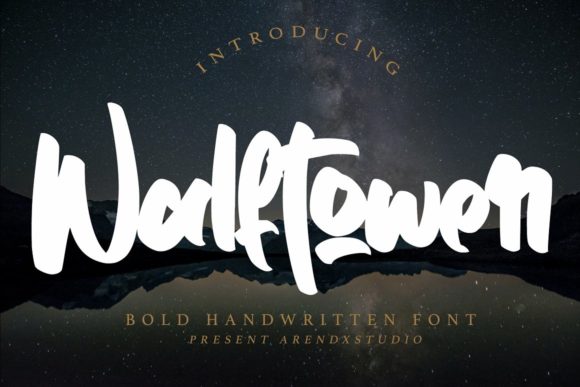
Introducing Walftower Font - A Script Masterpiece for Dazzling Designs
Welcome to the realm of Walftower Font, where handwritten elegance meets contemporary boldness. This captivating script font exudes personality and charm, inviting you to embark on a creative journey like no other. Walftower's distinct features, such as its smooth curves, thick strokes, and captivating texture, will transform your designs into visual masterpieces.
Immerse yourself in a world of endless possibilities as Walftower Font becomes your creative companion. Whether you're a seasoned designer or just starting out, this font will ignite your imagination and elevate your projects to new heights. Its versatility knows no bounds, making it perfect for fashion branding, editorial designs, and countless other creative endeavors.
Step into the spotlight and let Walftower Font amplify your message. With its bold and confident strokes, your words will command attention and leave a lasting impression. Create logos that exude sophistication, design social media posts that captivate your audience, or craft invitations that radiate elegance - the possibilities are limitless.
Don't let ordinary fonts hold you back. Embrace the extraordinary with Walftower Font and watch your designs flourish. Experience the joy of effortless creativity as your ideas take shape with this remarkable font. Let Walftower be your secret weapon in the battle for design excellence.
As you explore the depths of Walftower's versatility, you'll discover a font that seamlessly adapts to your creative vision. From enchanting wedding invitations to eye-catching posters, Walftower Font will add a touch of magic to every project you undertake. Its bold presence demands attention, while its graceful curves evoke a sense of timeless elegance.
Unleash the power of Walftower Font today and elevate your designs to new heights. Join the creative revolution and let your imagination run wild. With Walftower as your trusted companion, you'll never settle for ordinary again. Embrace the beauty of boundless creativity and watch your designs bloom into masterpieces.